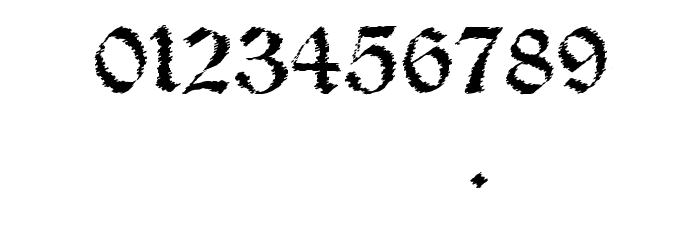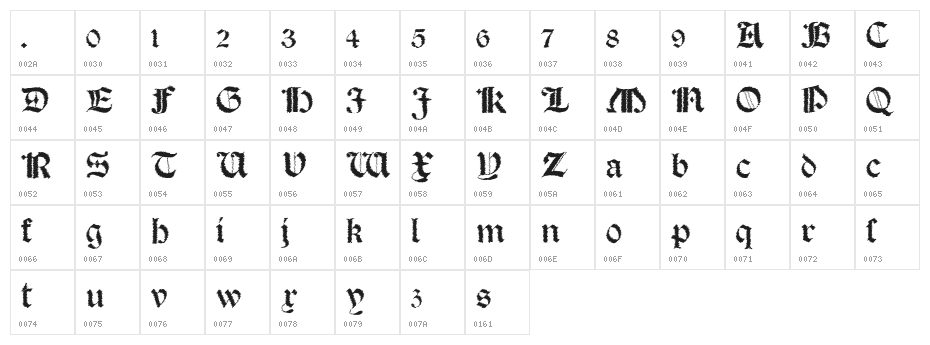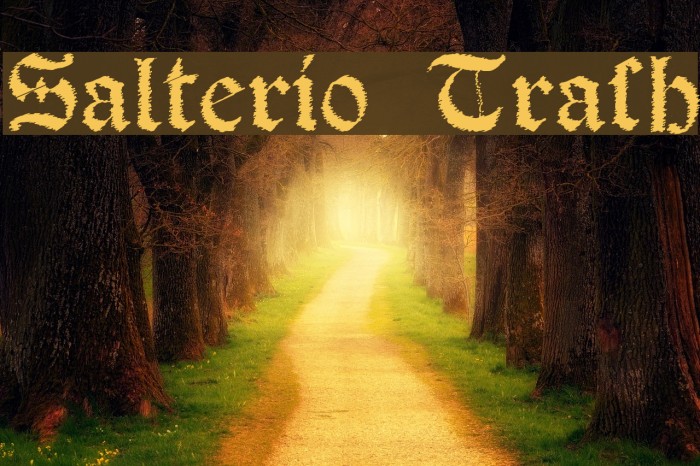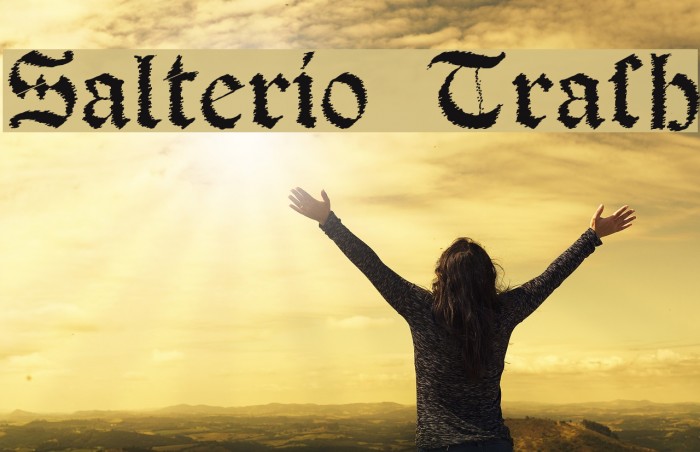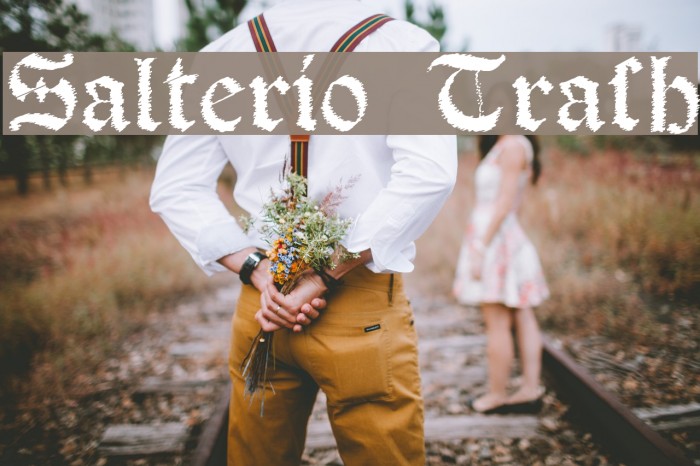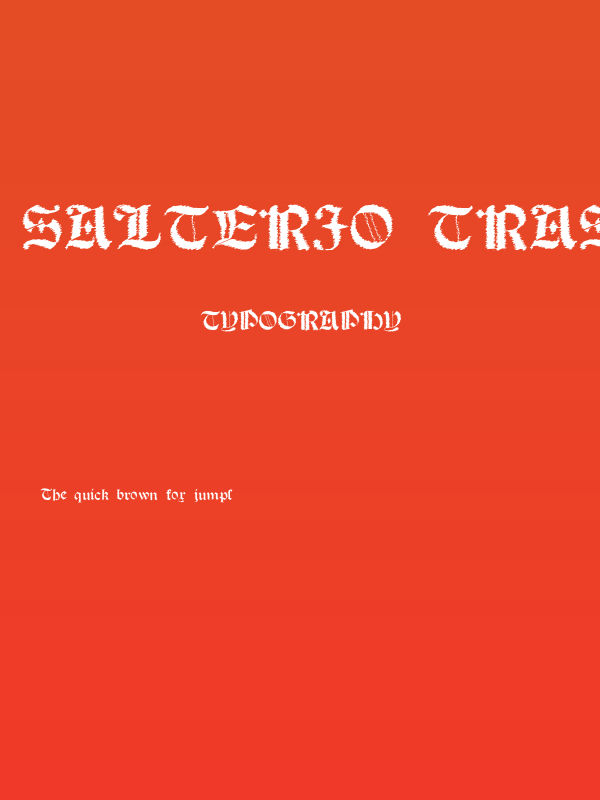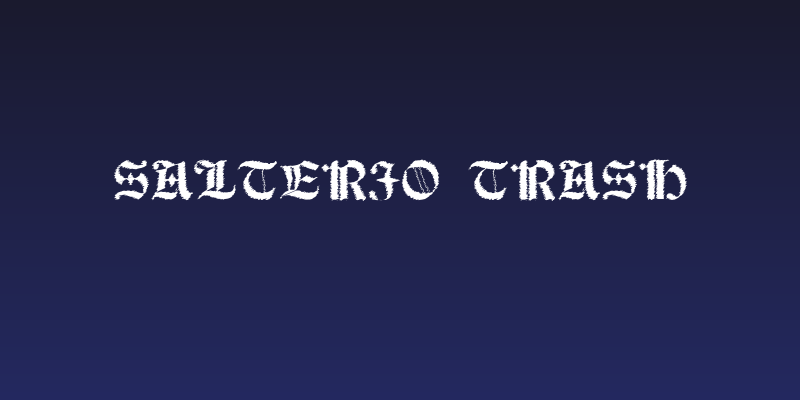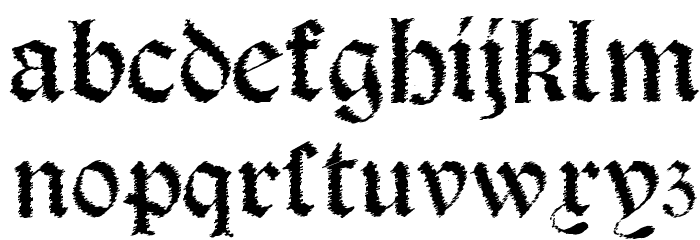
Salterio Trash Font
Salterio Trash Description
This font exhibits a classic blackletter style, characterized by its intricate and ornate letterforms. The strokes are bold and angular, with a distinct medieval aesthetic. The uppercase letters are particularly elaborate, featuring sharp serifs and decorative elements that enhance their gothic appearance. The lowercase letters maintain the same stylistic elements, offering a cohesive look across the alphabet. Numbers and special characters are designed to match the overall theme, ensuring uniformity in any text composition. This font is ideal for projects that require a historical or traditional touch, such as invitations, certificates, or branding for vintage-themed products.